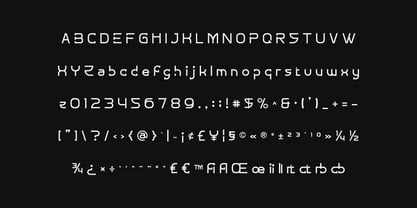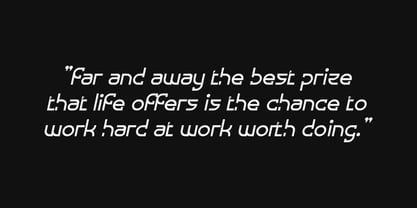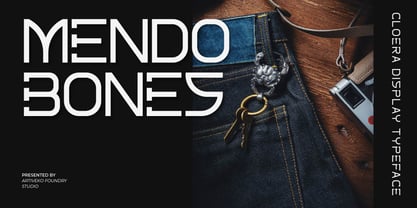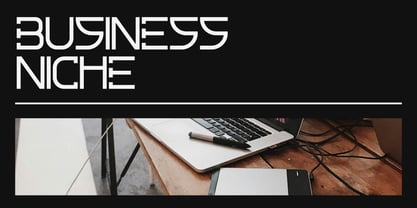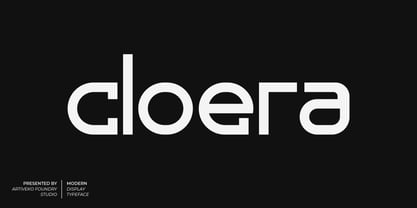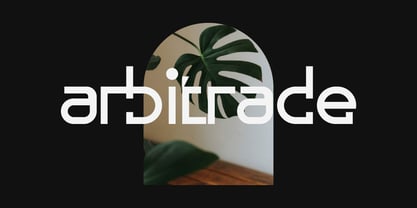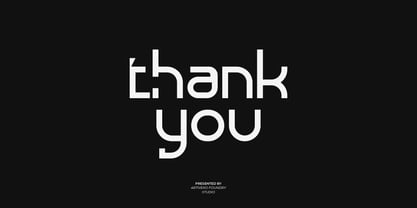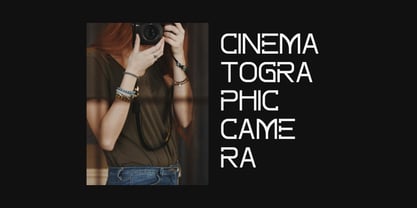
Cloera
Cloera is a modern and expressive display sans serif font crafted to deliver strong visual impact with a creative twist. Featuring bold proportions, clean strokes, and distinctive character details, Cloera is designed to stand out while maintaining clarity and readability. Perfect for posters, branding, logos, packaging, editorial headlines, social media graphics, and promotional materials, Cloera brings energy and personality to any design. Its contemporary structure makes it ideal for projects that need a confident, stylish, and memorable typographic voice. Cloera includes uppercase and lowercase characters, numerals, punctuation, multilingual support, and stylistic alternates for extended creative control. Add bold creativity to your typography with Cloera — a creative display sans serif font built for modern, expressive, and high-impact design.
Designers: Iwan Alwan
Foundry: Artiveko
Artiveko is a font design team based in Indonesia, comprised of several talented font designers who commenced their careers in the font design industry in 2020. With a dedicated focus on crafting fonts, the team members bring their collective expertise and passion to every project they undertake. Situated in Indonesia, Artiveko draws inspiration from the vibrant cultural landscape of the region, infusing their creations with unique flavors and aesthetics.The team's font collection encompasses a diverse range of styles, including serif, sans serif, handwritten, and script typefaces. Each typeface is meticulously crafted to meet the demands of modern design while offering versatility and functionality across various applications. Whether it's the classic elegance of serif fonts, the contemporary appeal of sans serif designs, the personal touch of handwritten scripts, or the expressive flourishes of script fonts, Artiveko ensures that every font reflects their dedication to quality and innovation.Artiveko's fonts have garnered recognition and acclaim, with their works being featured on prominent social media platforms like Creative Market. Through these platforms, the team has been able to connect with a global audience of designers and typographers, further amplifying their reach and influence in the industry. Their fonts are celebrated for their impeccable craftsmanship, attention to detail, and ability to elevate design projects with style and sophistication.As Artiveko continues to evolve and expand its font collection, the team remains committed to pushing the boundaries of typography and setting new standards of excellence. With a relentless focus on creativity, innovation, and collaboration, Artiveko strives to inspire and empower designers around the world with their distinctive and versatile font designs.